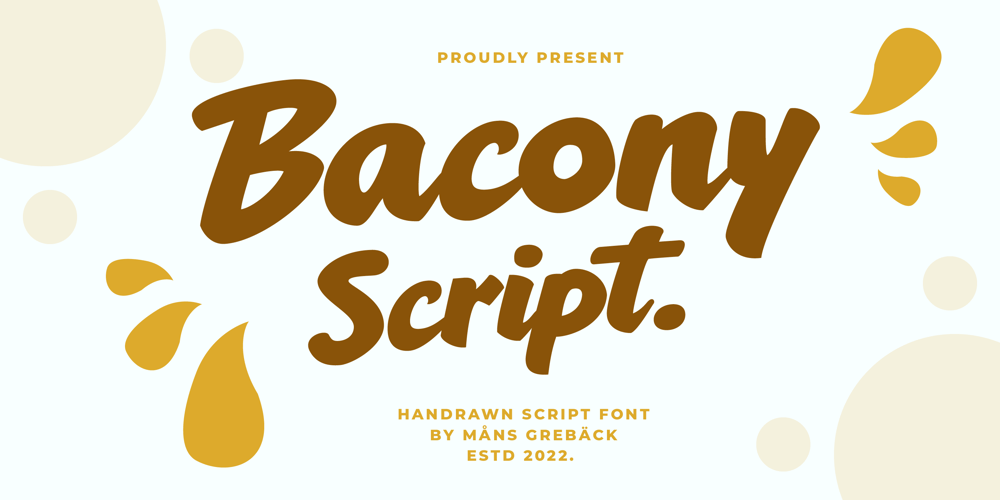
Bacony Script
Bacony Script font
Bacony Script Font Family was designed by Måns Grebäck and published by Mans Greback. Bacony Script contains 4 styles and family package options. The Bacony Script family is a bold script family of fonts. This rustic font is expressive, and is constructed of fat brush strokes and heavy letterforms. Use it for a comical logotype or headline to give your work that genuine handpainted look. The Bacony Script family consists of four high-quality fonts: Regular, Italic, Bold and Bold ItalicThe font is built with advanced OpenType functionality and has a guaranteed top-notch quality, containing stylistic and contextual alternates, ligatures and more features; all to give you full control and customizability. It has extensive language support, covering all Latin-based languages, from Northern Europe to South Africa, from America to South-East Asia. It contains all characters and symbols you’ll ever need, including all punctuation and numbers.